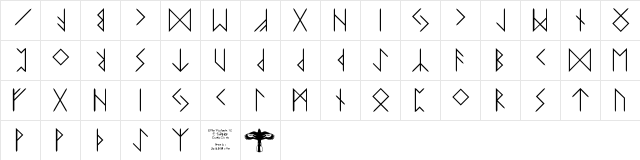
Elder Futhark Regular
Design Context for Elder Futhark Typeface
Elder Futhark is a composed and adaptable typeface that performs quietly and consistently across a wide range of design contexts.